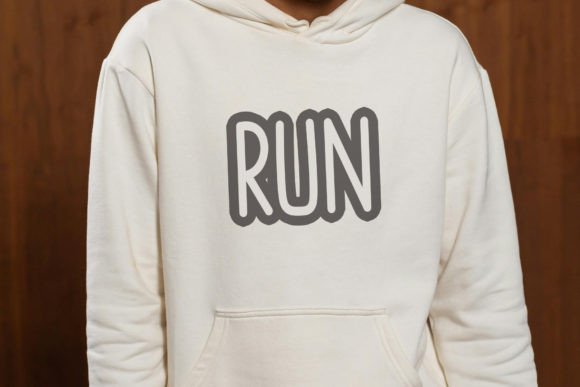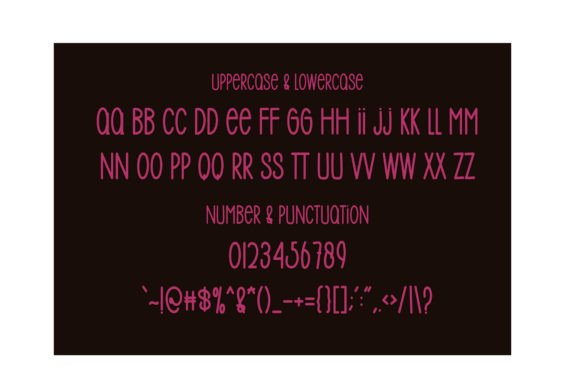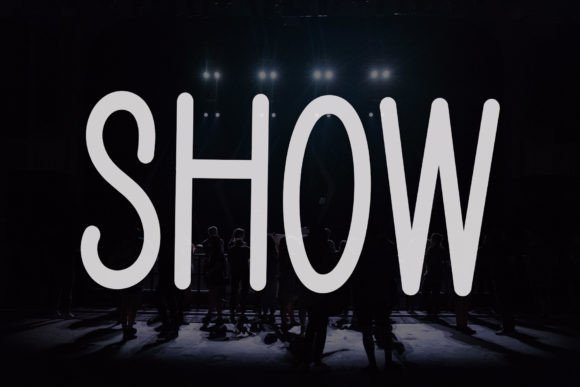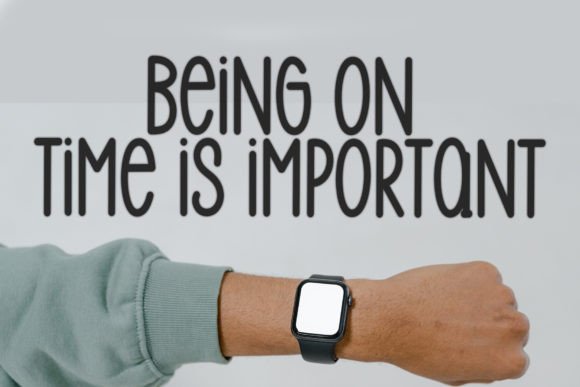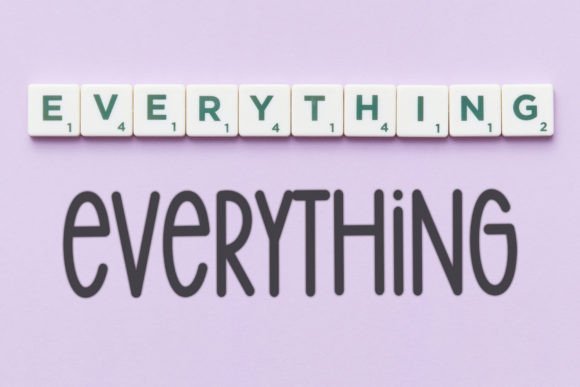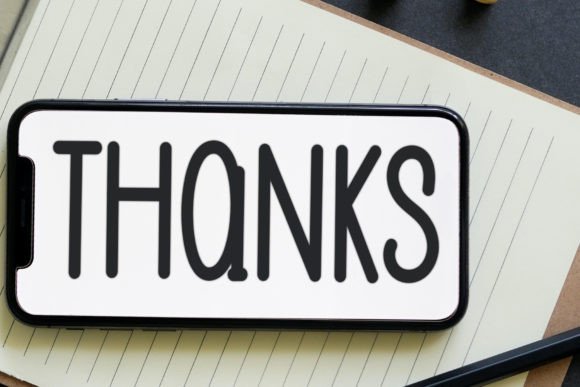
Cosmic Flame Font: Elevate Your Designs with Elegance and Timeless Style
Are you on the hunt for a font that adds a touch of elegance and sophistication to your designs? Look no further than the Cosmic Flame Font. This stunning display font is perfect for designers and crafters who want to create spectacular designs that stand out from the crowd. In this article, we’ll dive into the world of Cosmic Flame Font, exploring its unique features, and what makes it an ideal choice for your favorite projects.
What is Cosmic Flame Font?
Cosmic Flame Font is a beautifully crafted display font that boasts an elegant touch. Its distinct and timeless style makes it perfect for a wide range of design applications, from branding and advertising to packaging and digital media. Whether you’re a professional designer or a crafty DIY enthusiast, this font is sure to capture your heart.
Key Features of Cosmic Flame Font
- Elegant and Sophisticated: Cosmic Flame Font exudes elegance and sophistication, making it perfect for high-end designs and luxury brands.
- Distinct and Timeless Style: The font’s unique style ensures that your designs will stand the test of time, and its timeless appeal will never go out of fashion.
- Perfect for Display Purposes: Cosmic Flame Font is specifically designed for display purposes, making it ideal for headlines, titles, and other attention-grabbing elements.
- Versatile: This font can be used for a wide range of design applications, from digital media to print materials.
Why Choose Cosmic Flame Font?
So, what sets Cosmic Flame Font apart from other fonts on the market? Here are just a few reasons why designers and crafters love this font:
- Unique and Memorable: Cosmic Flame Font is sure to make your designs stand out from the crowd. Its unique style ensures that your brand or project will be remembered.
- Easy to Read: Despite its elegant and sophisticated style, Cosmic Flame Font is incredibly easy to read, making it perfect for body text and other applications where legibility is key.
- Highly Versatile: This font can be used for a wide range of design applications, from elegant wedding invitations to bold advertising campaigns.
How to Use Cosmic Flame Font
Using Cosmic Flame Font is incredibly easy. Here are a few tips to get you started:
- Pair it with Other Fonts: Cosmic Flame Font pairs perfectly with other fonts, making it easy to create stunning font combinations.
- Experiment with Colors: The font’s elegant style looks amazing in a wide range of colors. Experiment with different colors to find the perfect combination for your design.
- Use it for Headlines and Titles: Cosmic Flame Font is specifically designed for display purposes, making it perfect for headlines, titles, and other attention-grabbing elements.
In conclusion, Cosmic Flame Font is a stunning display font that is perfect for designers and crafters who want to create spectacular designs. Its elegant and sophisticated style, combined with its distinct and timeless appeal, make it an ideal choice for a wide range of design applications. Whether you’re looking to create a luxury brand or simply want to add a touch of elegance to your designs, Cosmic Flame Font is sure to exceed your expectations.